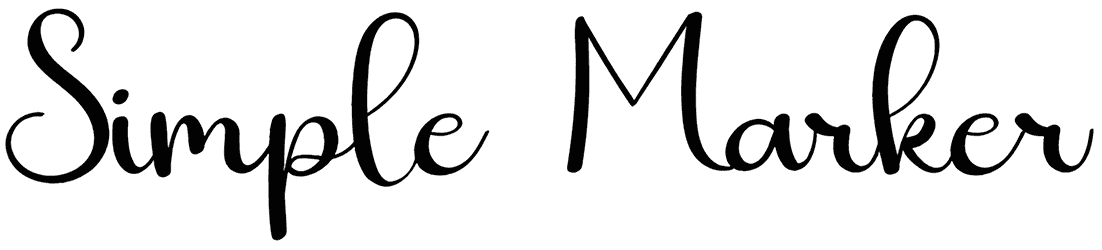
Simple Marker Font
If you’re in charge of a mission-critical project, Simple Marker could be your savior. This handwritten script font performs exceptionally well at creating a positive feeling in a variety of print or digital projects.
With its exact, curled, connected style that conveys a new, modern vibe, this attractive curvy font is ideal for invitations, film titles, book covers, and video graphics. This is a freebie, and you can get it right now from our extensive library here in RB.
Simple Marker feels equally charming and elegant. It looks stunning on wedding invitations, thank you cards, quotes, greeting cards, logos, business cards and every other design which needs a handwritten touch.